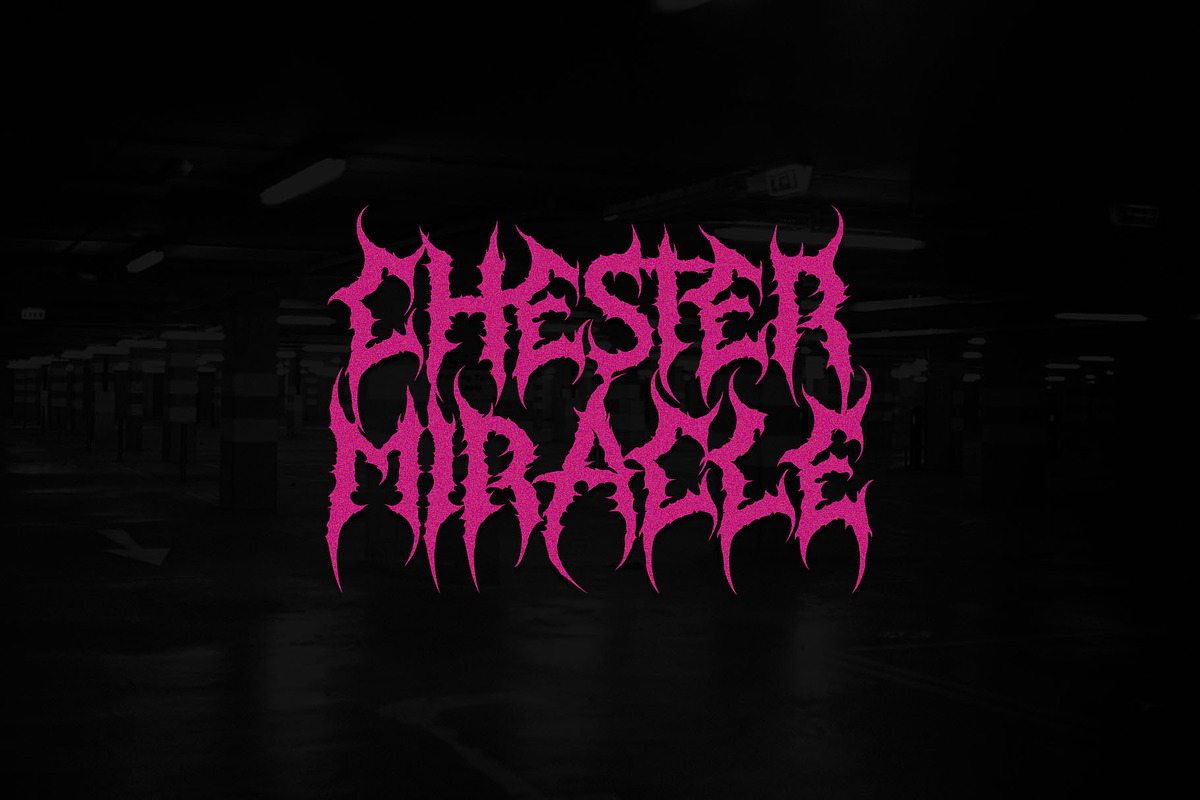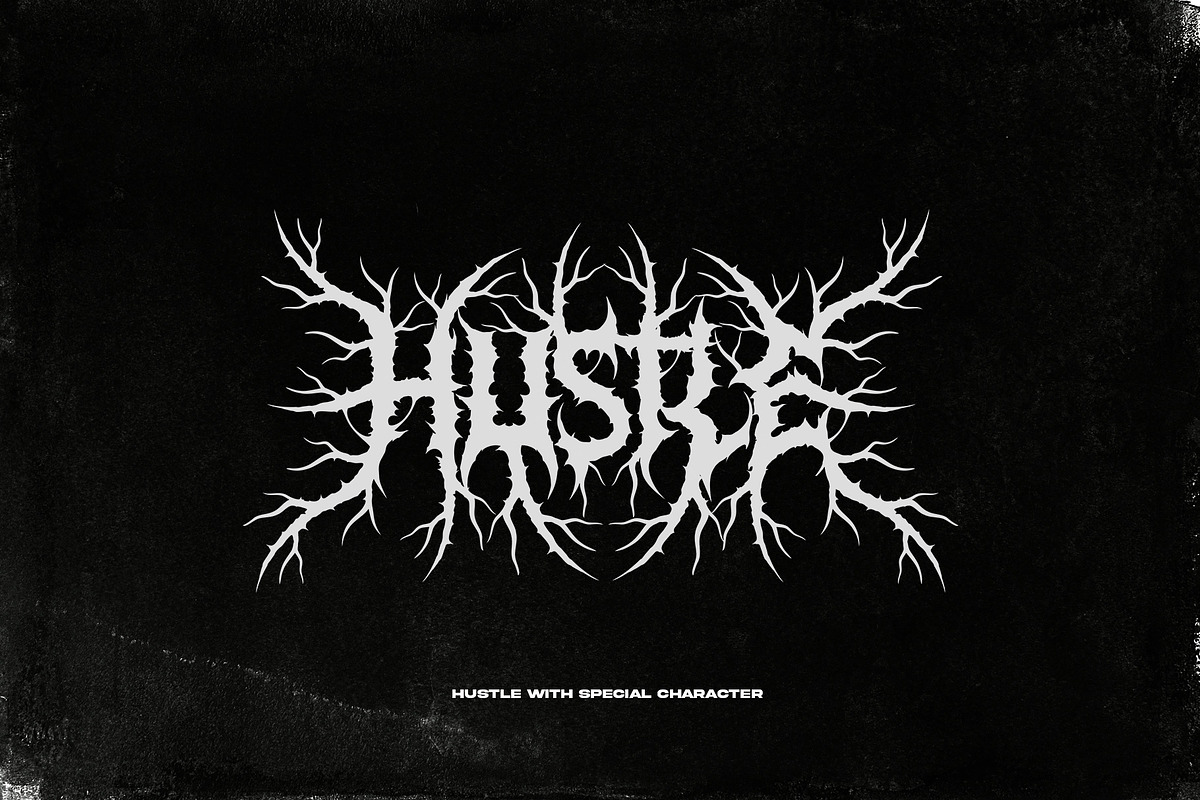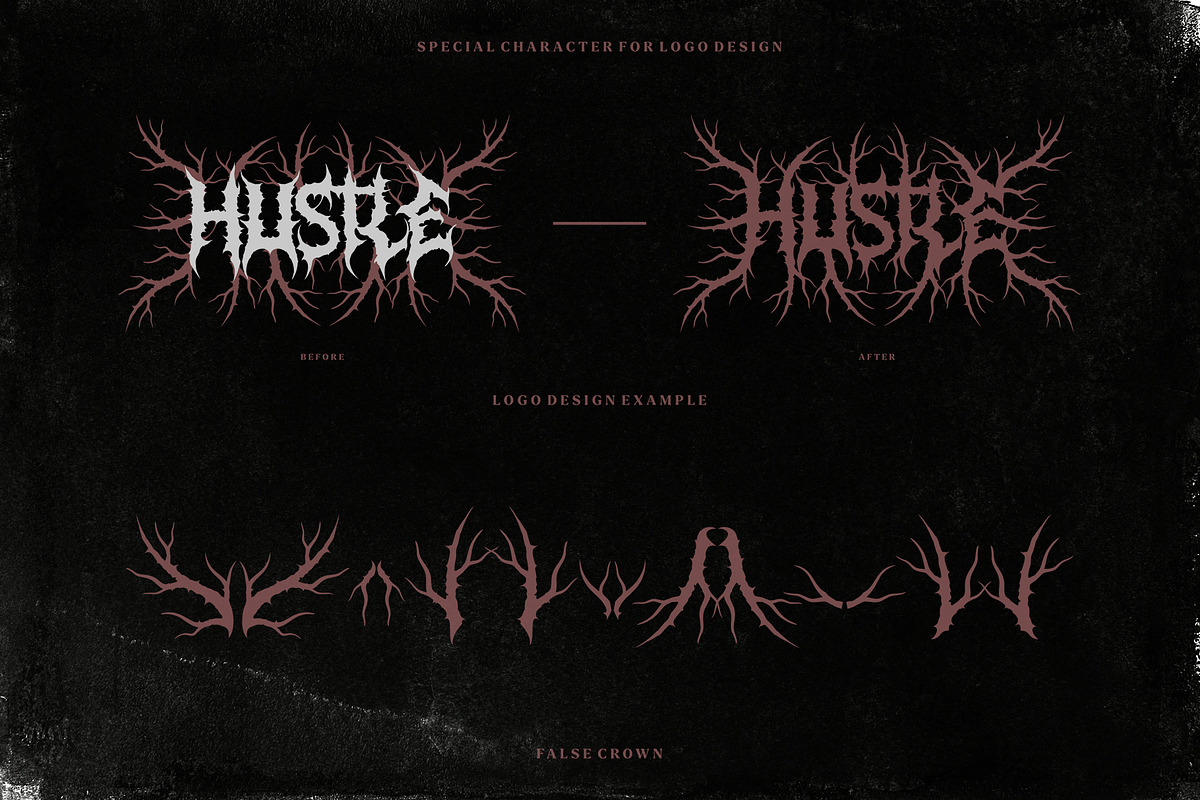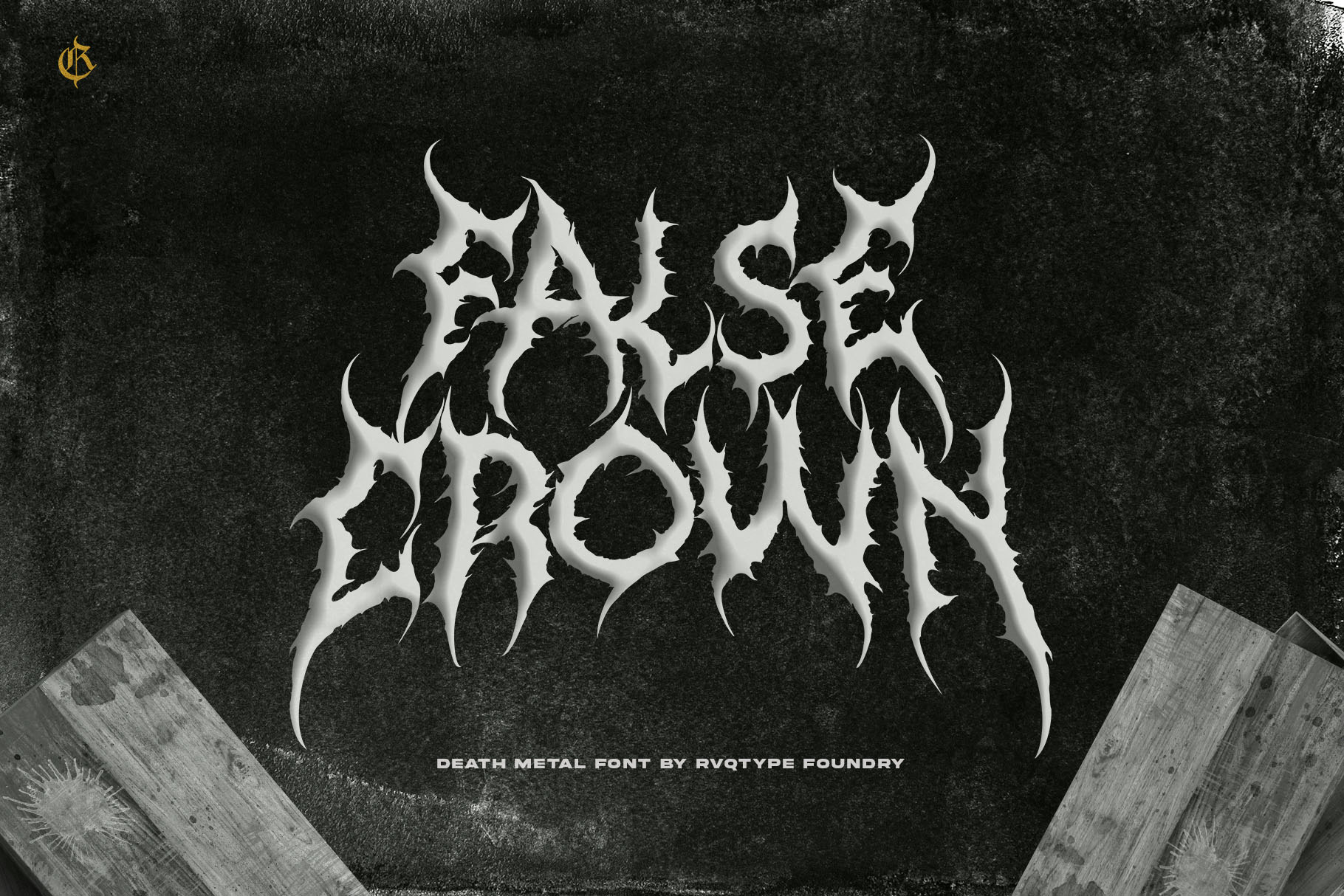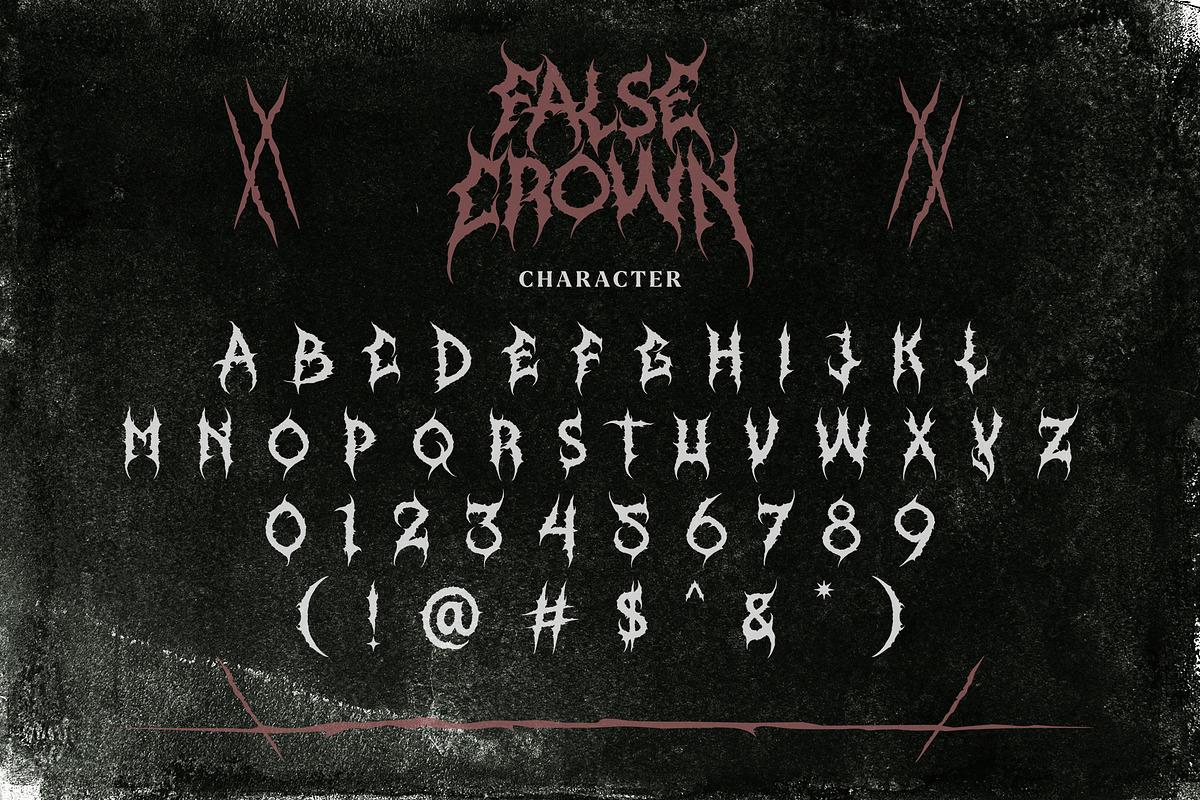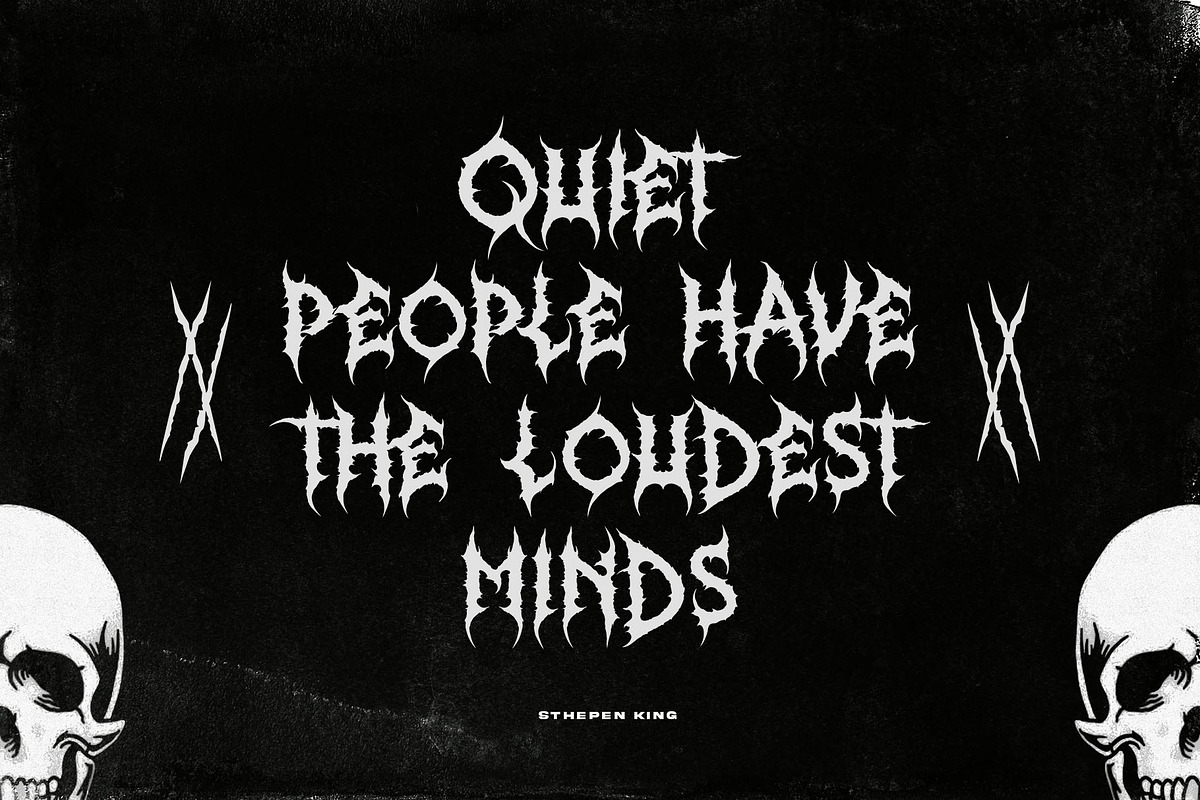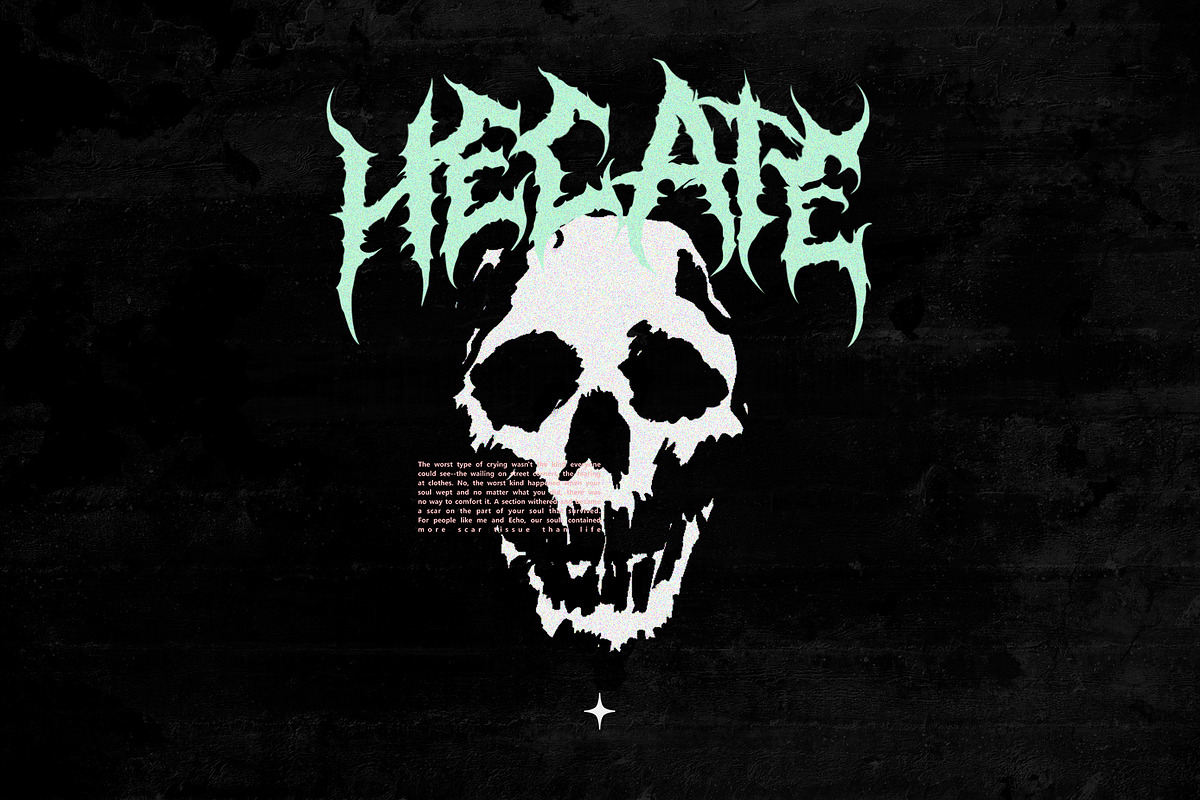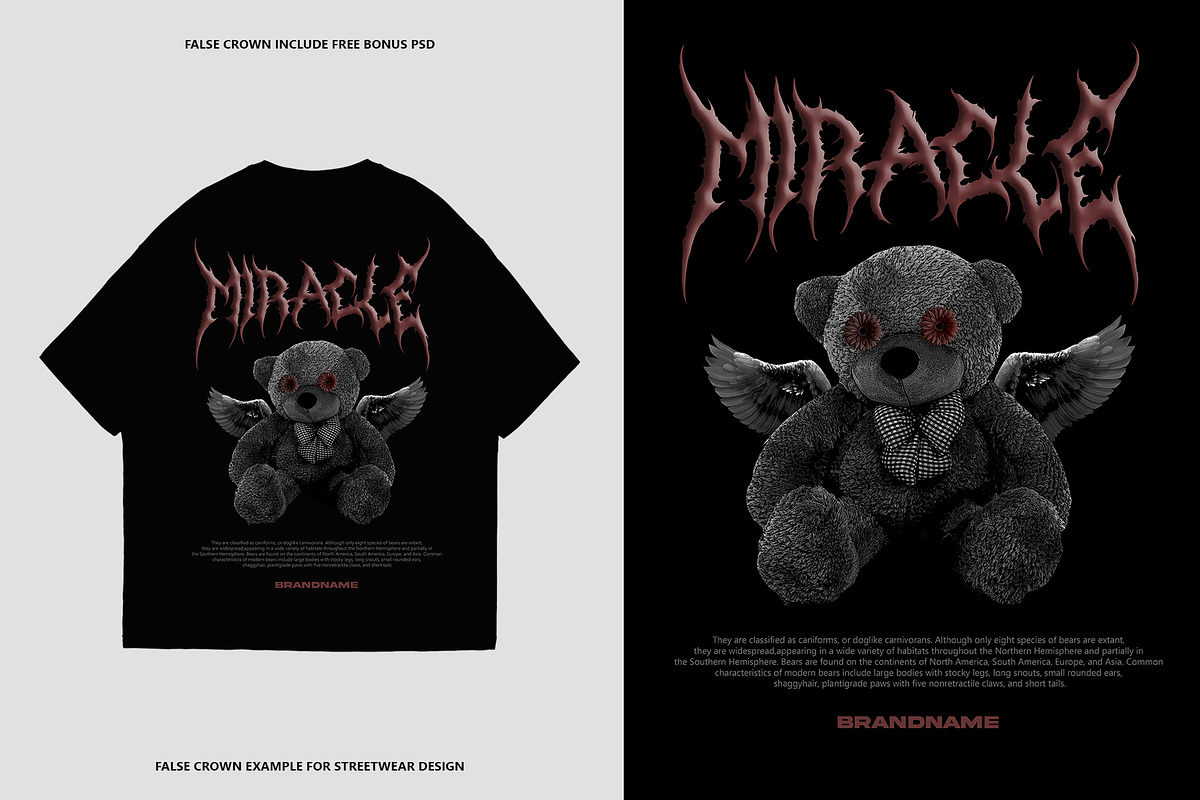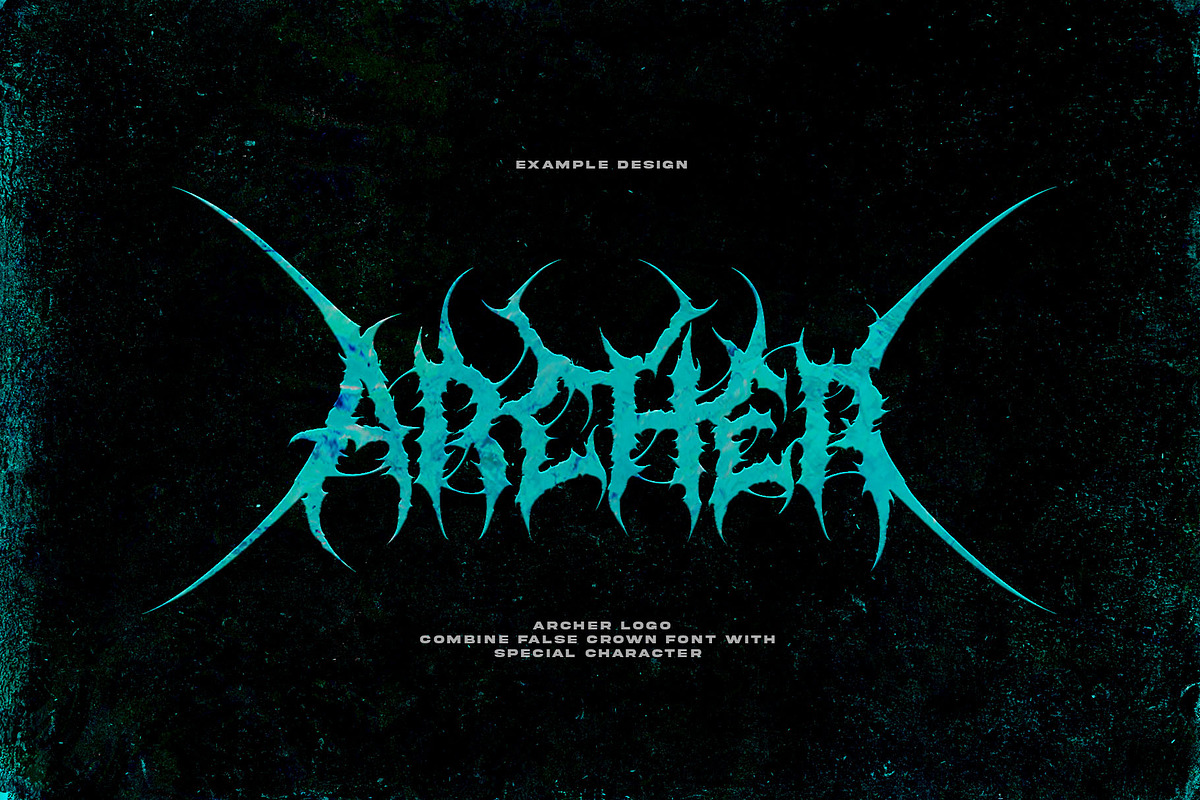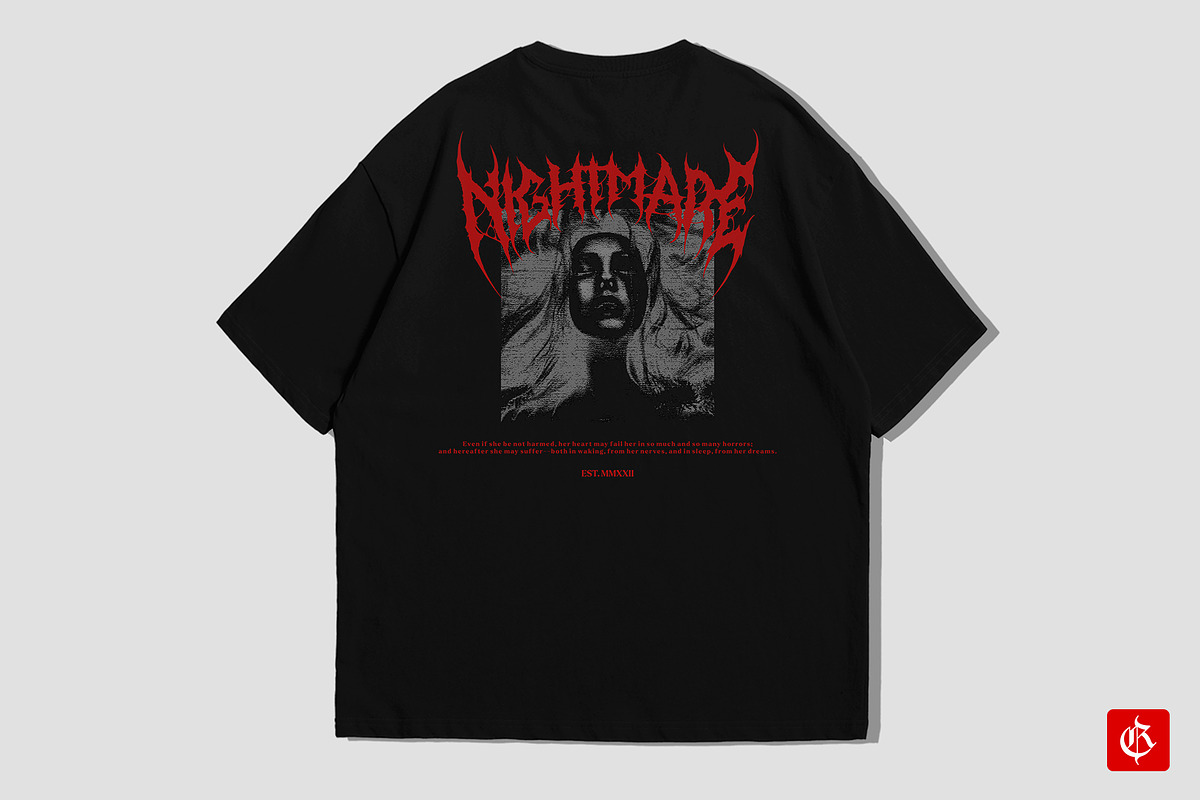
False Crown (Death metal font)
False crown is the new font deathmetal and black metal from Rvq typefoundry ,was created as a dual-purpose font To create the beautiful combination, just mix your words with the alternative glyphs and Ornament. Perfect for : for Band, Music, clothing, Branding, Logos, Greeting Cards, Stationery Design, Invitations, T-shirts, Apparel, Packaging designs, Posters, Typographic Design, and so much more..
- Character Set A-Z
- Special Characters (ornament)